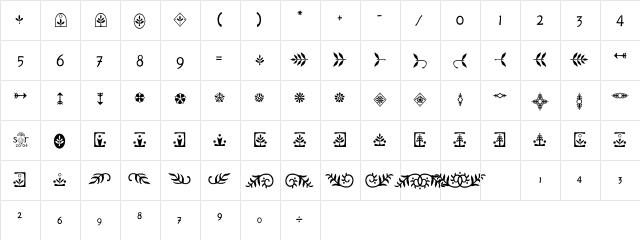
Rustic Sage Ornaments Regular
Design Context for Rustic Sage Ornaments Typeface
Rustic Sage Ornaments is built around its visual character rather than neutral utility — its distinctive forms are designed to make an impression at display sizes.
Font Pairing: Pair with a clean neutral sans-serif for body copy to let Rustic Sage Ornaments's character lead without overwhelming the composition.
Pro Tip: Treat Rustic Sage Ornaments as the centrepiece of your typographic hierarchy. One strong heading set in a decorative face can carry an entire layout.